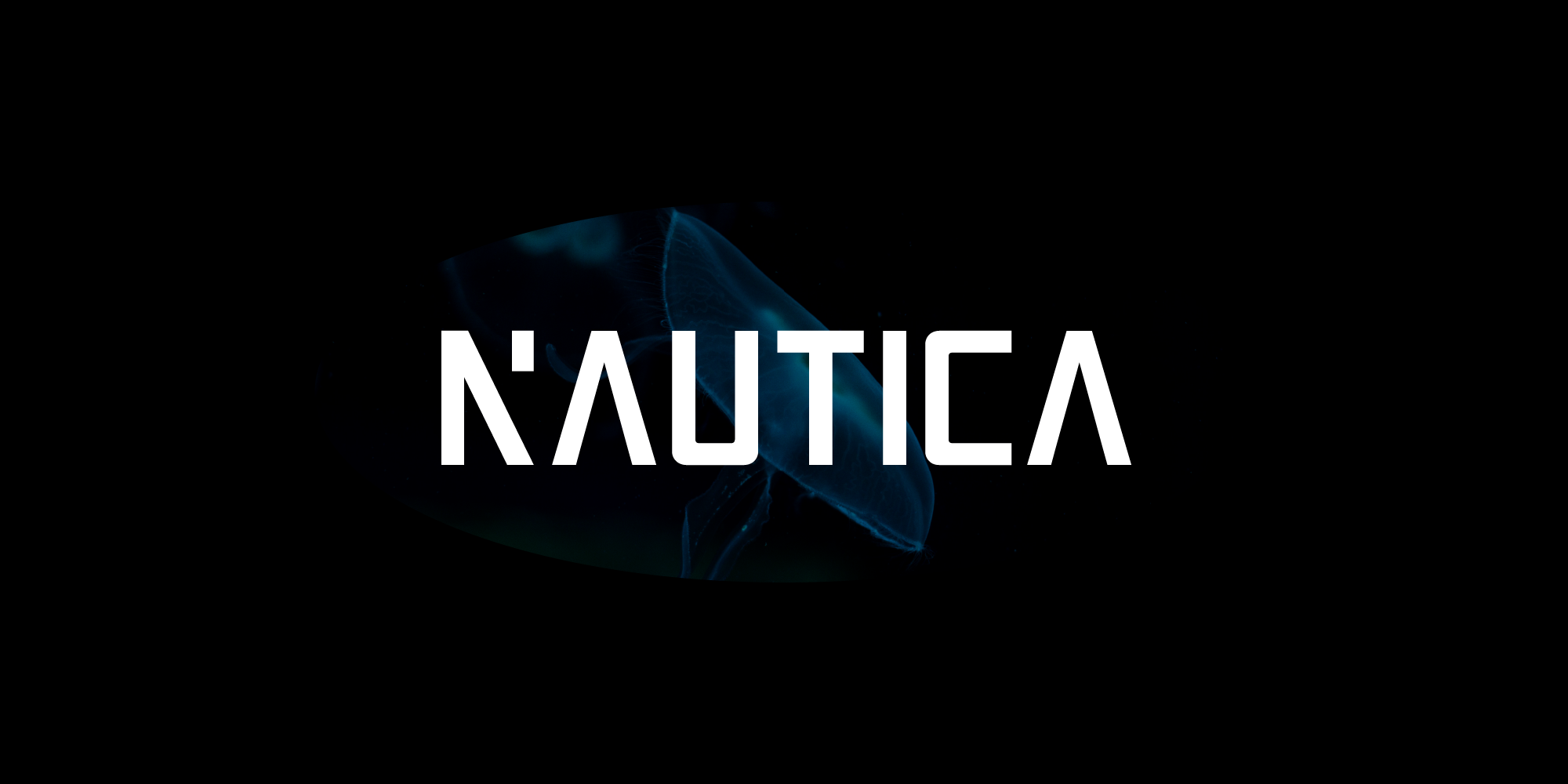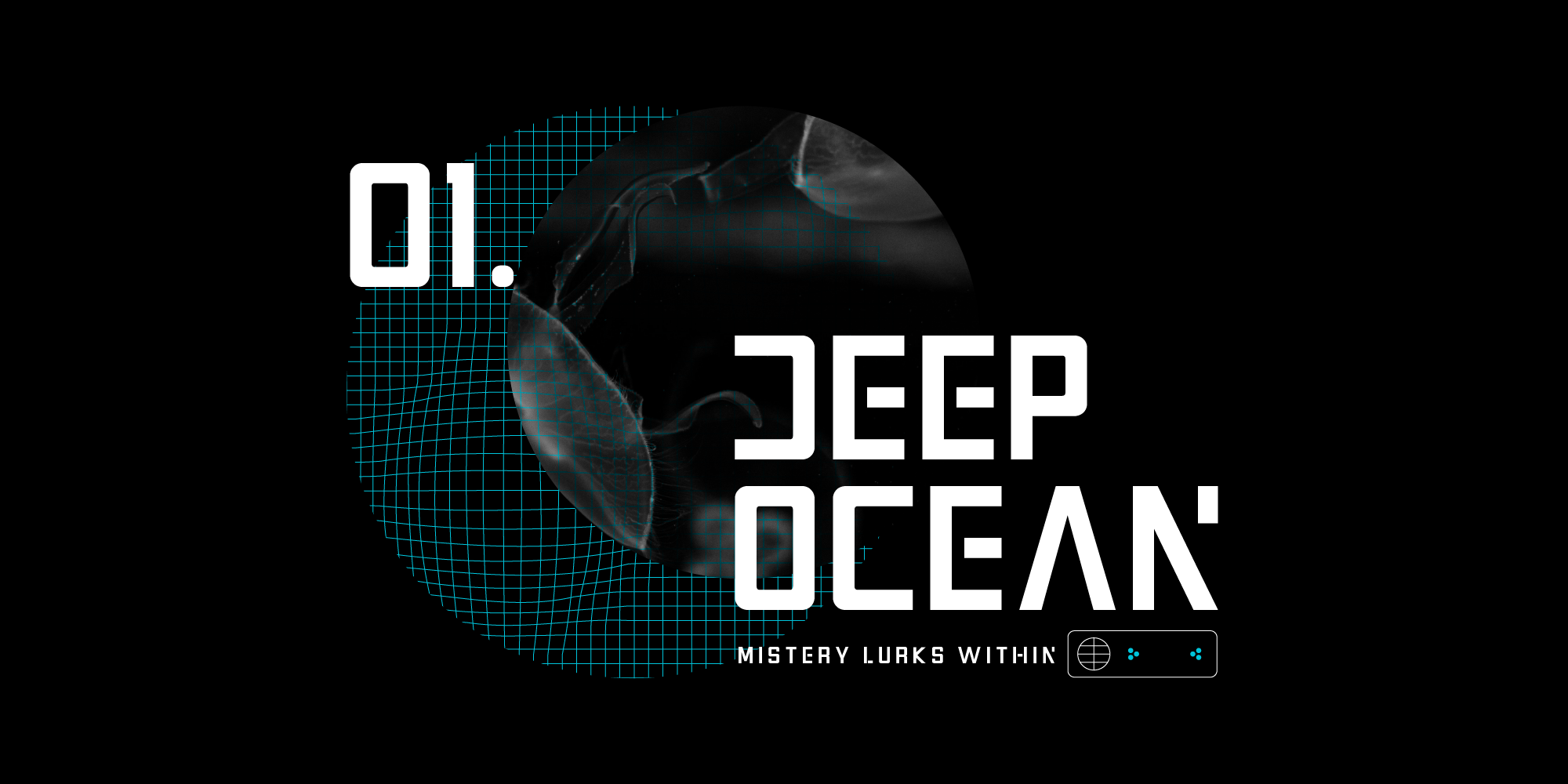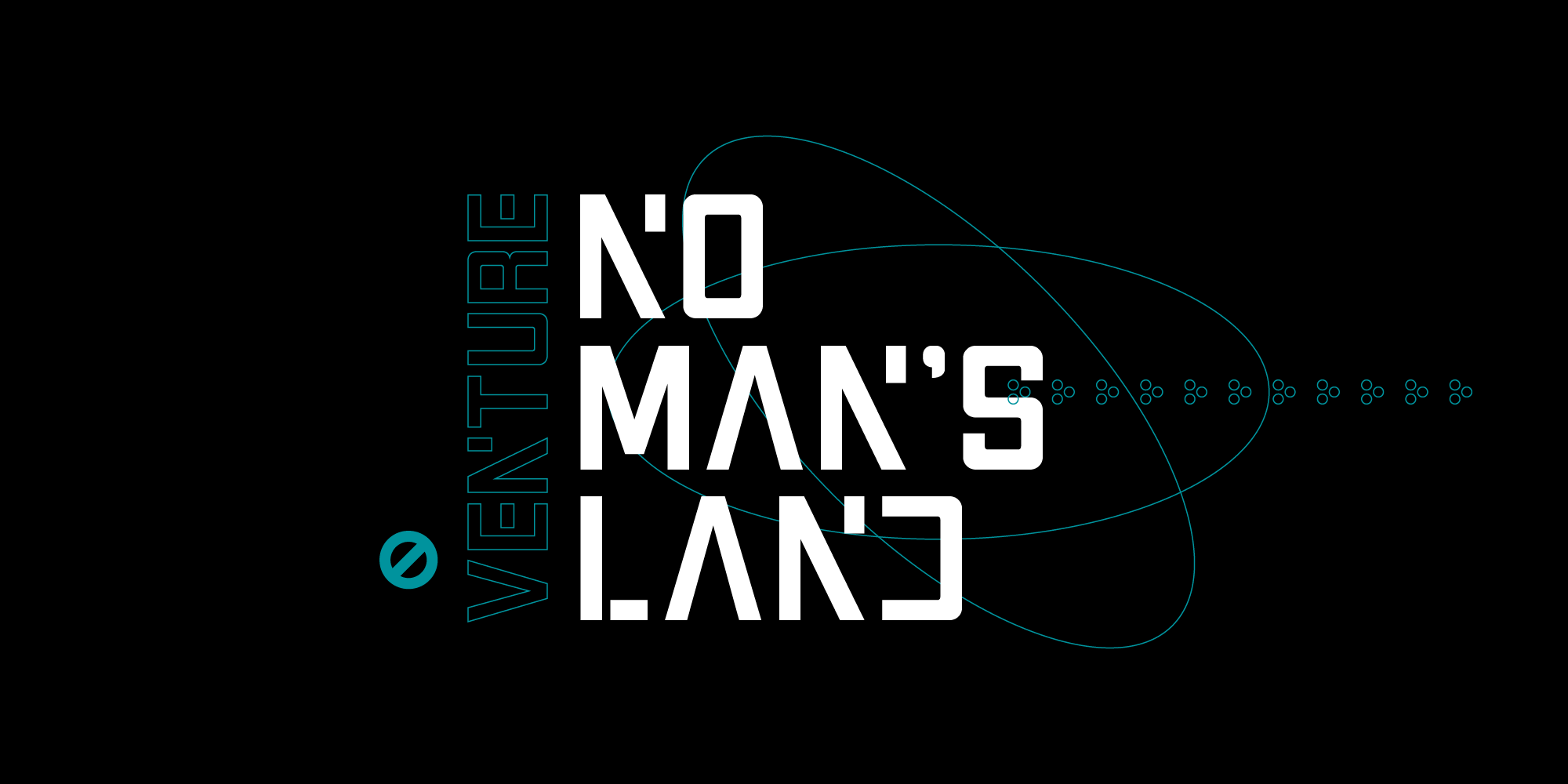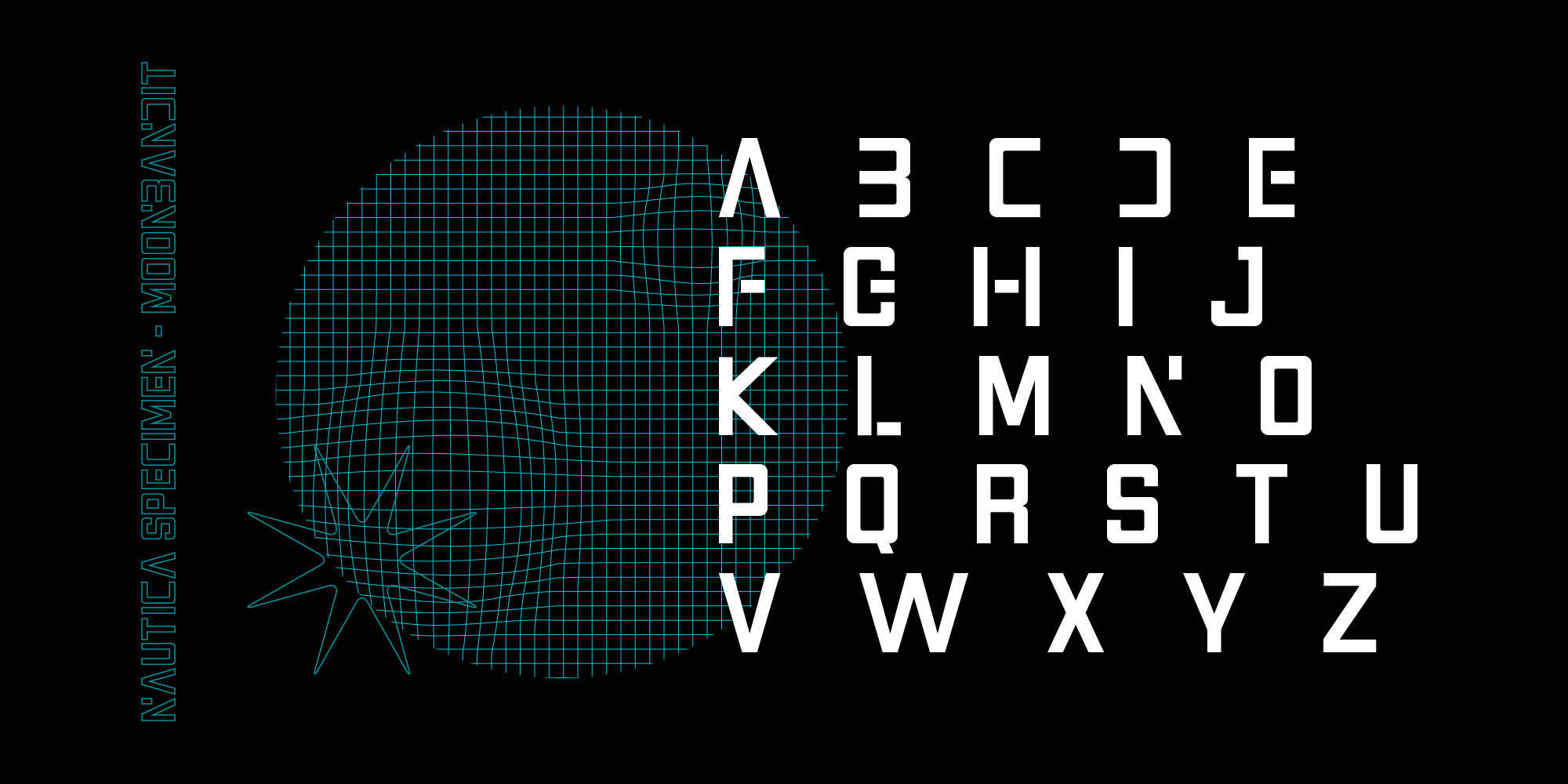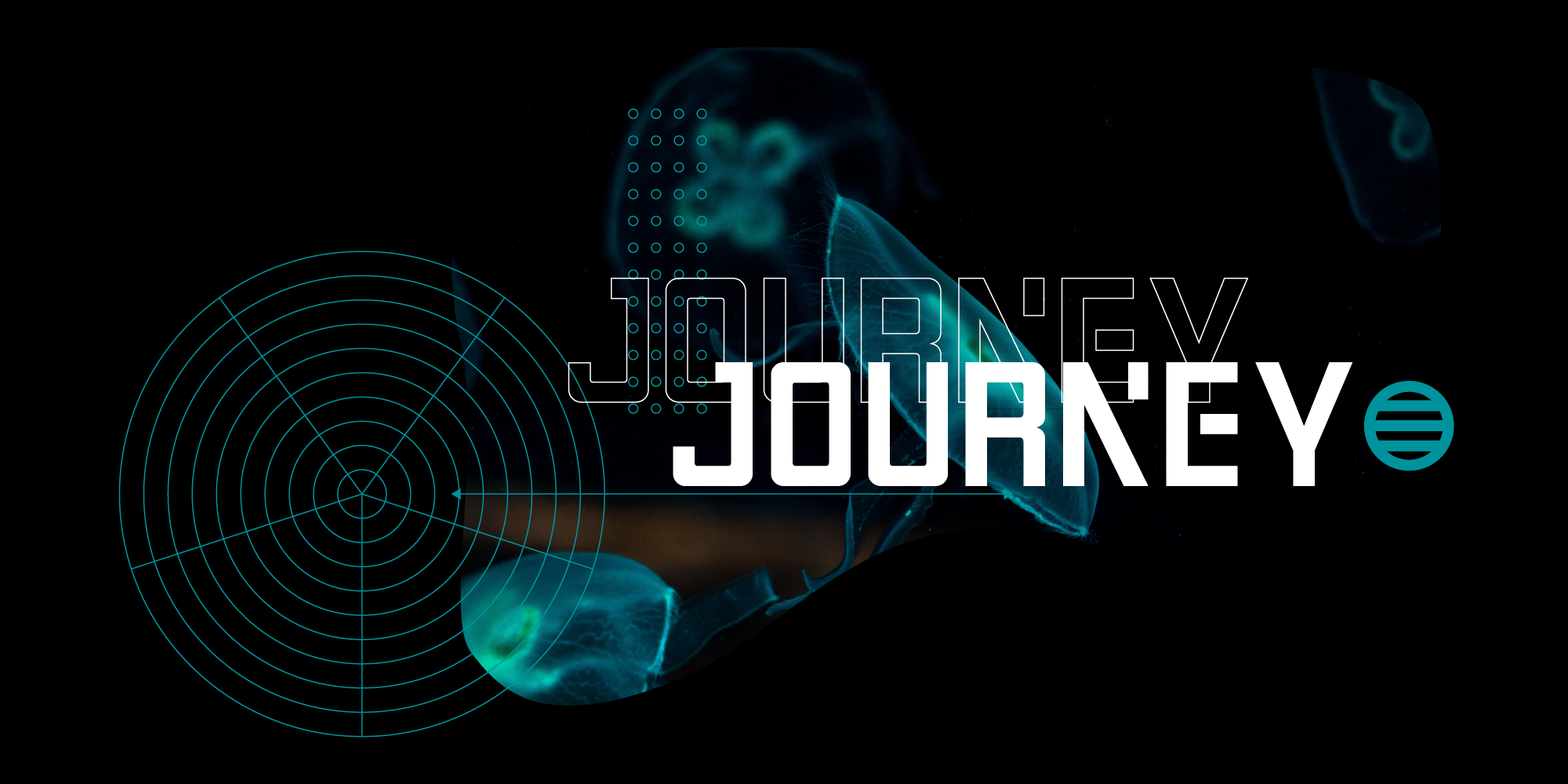
MBF Nautica
Nemo likes to travel the ocean and expand his mind
Nautica is a clean, bold and modern font inspired by the depth of the ocean world. This typeface is perfect for futuristic, scifi and even street wear design, it is versatile and an attention grabber. Use Nautica for display, logo, headline, poster, tee-shirt and many more.
**Note** Please keep in mind that this is a display font. It is intended to be used as a headings, title, branding, logo and wordmark rather than body text.